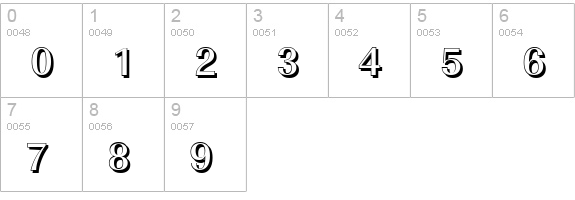
ImperialSh-Medium-Regular is a balanced, medium-weight variant in the ImperialSh typeface family \xE2\x80\x94 well suited to sub-headlines, navigation, and balanced editorial work.
ImperialSh-Medium-Regular is a classic and versatile font that exudes elegance and sophistication. Its clean lines and balanced proportions make it ideal for a wide range of design projects, from branding to editorial work. The medium weight strikes the perfect balance between impact and readability, making it suitable for both headlines and body text. What sets ImperialSh-Medium-Regular apart is that it is available for free download at FontsMarket.com. This means that designers and enthusiasts alike can easily access this high-quality font without any cost, allowing for endless creative possibilities without breaking the bank. Whether you're working on a print project or a digital design, ImperialSh-Medium-Regular is sure to elevate your work with its timeless appeal and professional aesthetic.